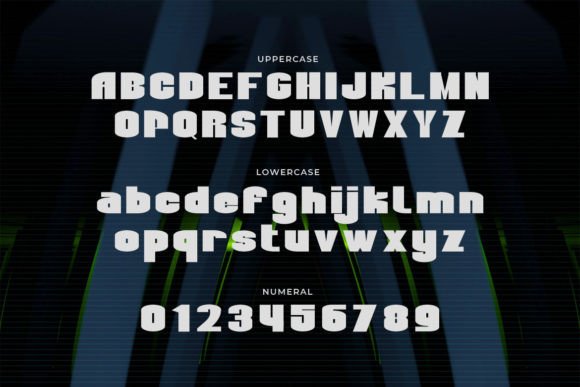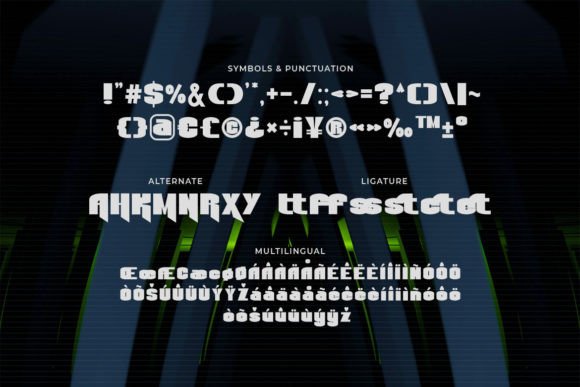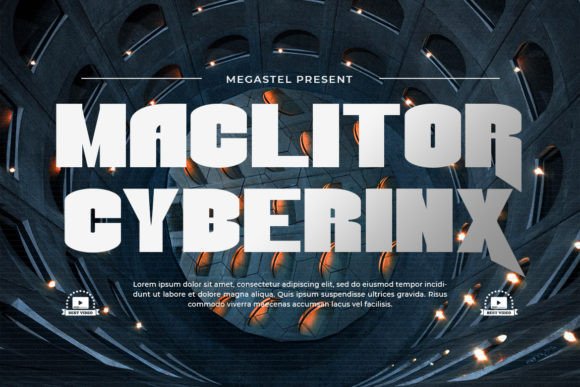
Megastel is a bold sans font.
It has a tall feel yet is unique This font is great for logo designs, quotes, album covers, business cards, and much more.